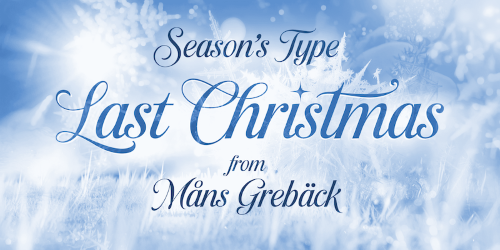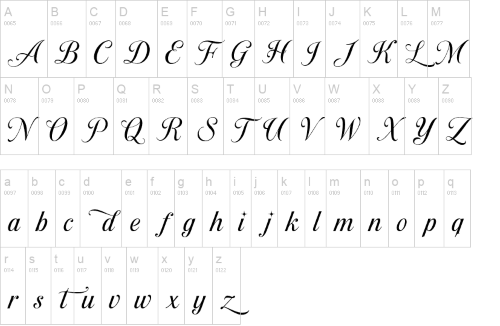
Last Christmas Font
Last Christmas Font is a graceful script typeface that blends elegant strokes with festive charm. Its flowing letterforms and delicate swirls capture the warmth, romance, and joyful spirit of the holiday season, making it perfect for greeting cards, invitations, seasonal branding, and decorative Christmas designs.
➤ Designer: Måns Grebäck